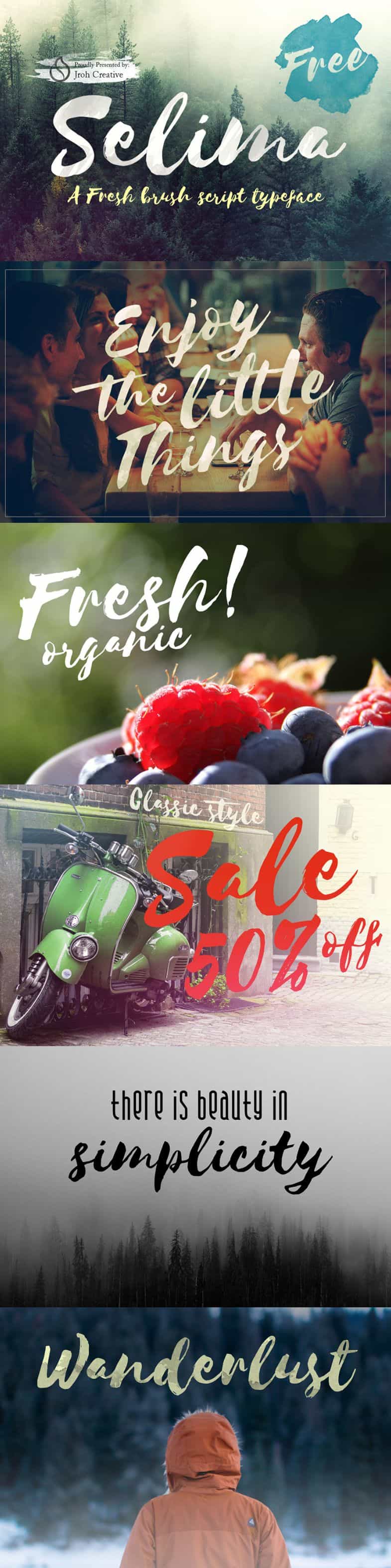
Selima Script is one of the free brush-lettered fonts and it has beautiful irregular forms of the base line and suitable for any catchy design as well as messages.